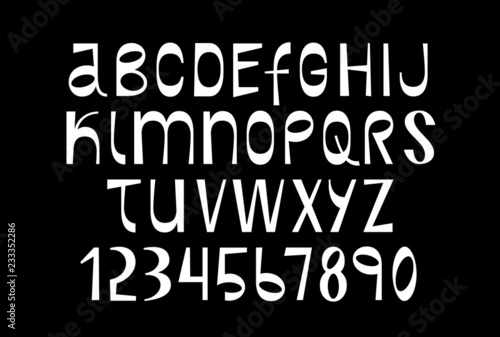
BOUNCING VIBRANT AND DYNAMIC BASIC ENGLISH ALPHABET, UNICASE FONT, CONTRAST LATIN TYPE INCLUDES NUMERALS, GREAT FOR PRINTS, SCREEN PRINTING, TITLES, HEADLINES, COVERS, ADVERTISEMENT, MUSIC ALBUMS